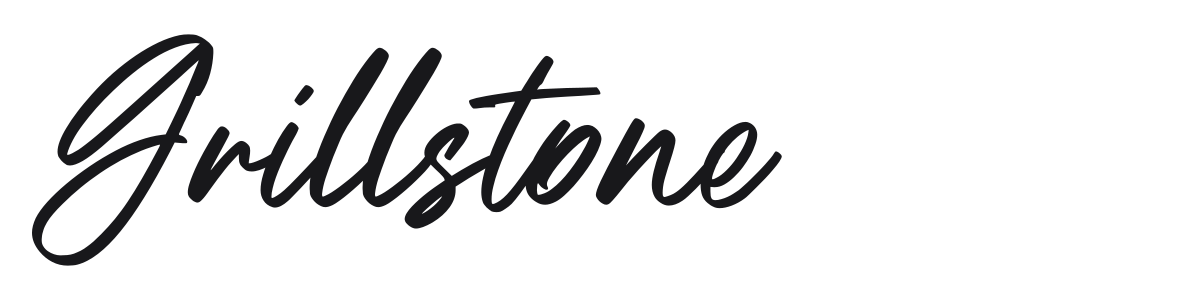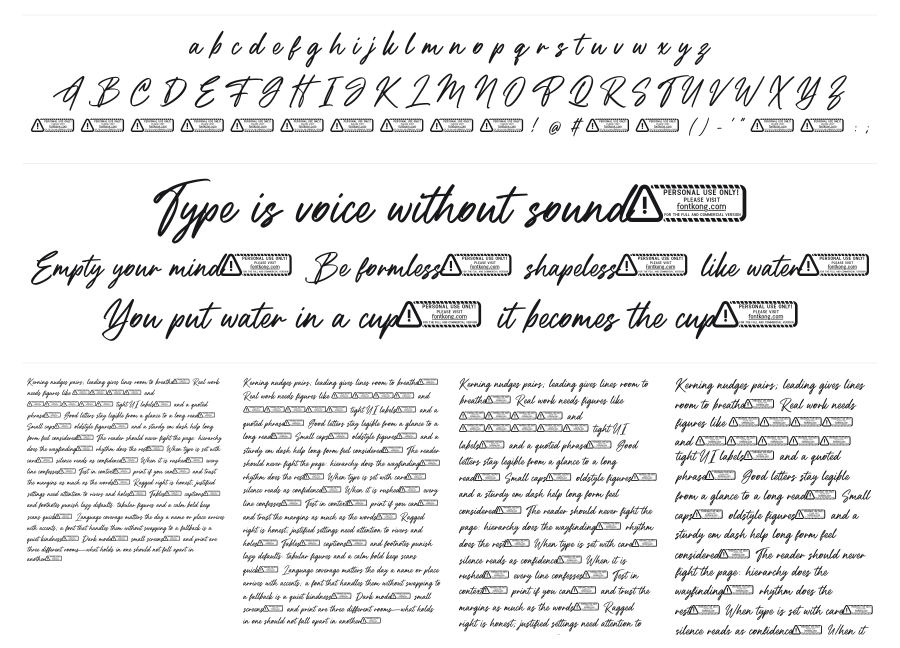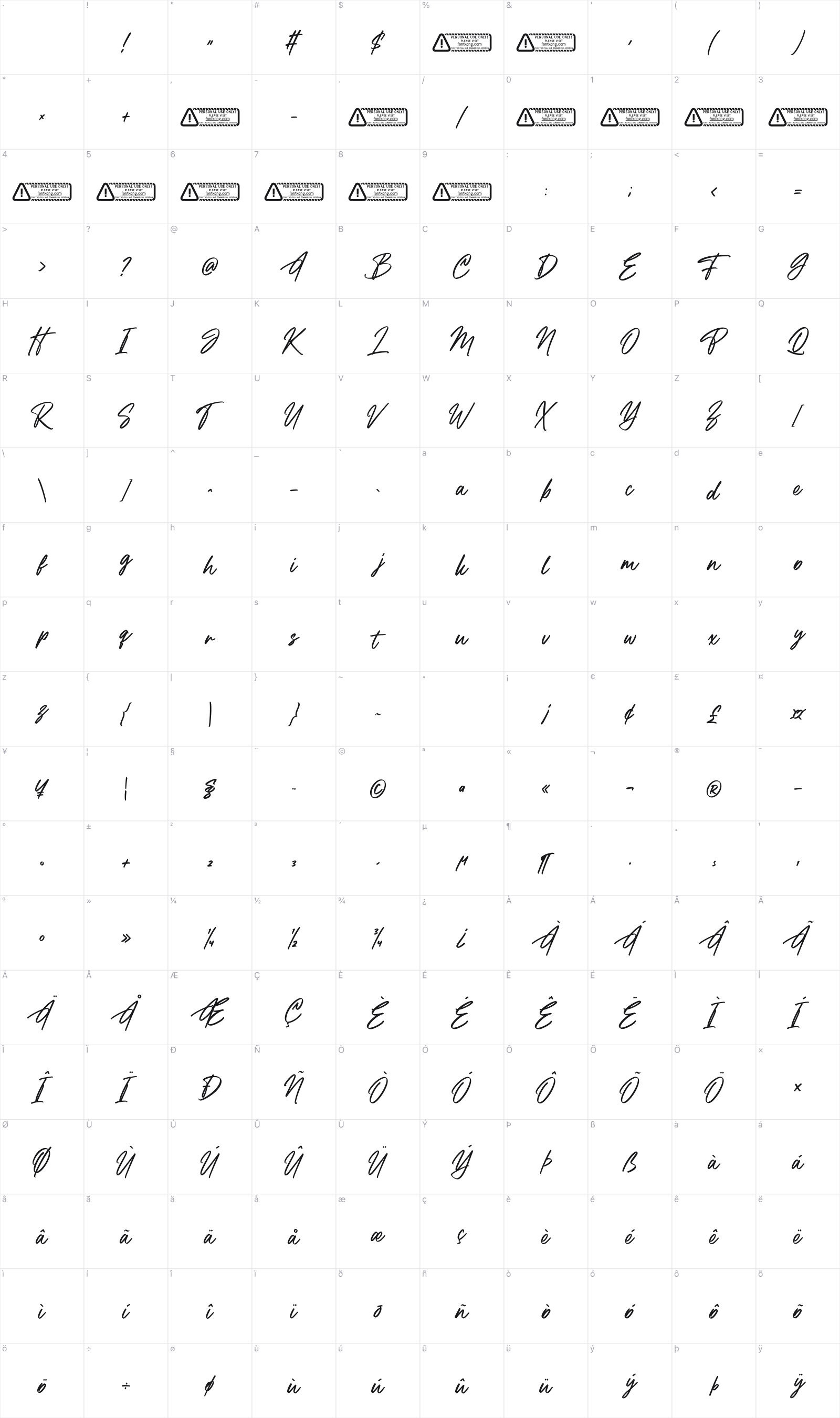
Grillstone
Grillstone is a modern casual script with flowing connected strokes and a relaxed, pen-written rhythm. The slightly variable baseline and smooth stroke transitions give it a natural handcrafted quality without feeling rough or unpolished. It sits comfortably on packaging, social media graphics, and brand identities that want warmth over formality.